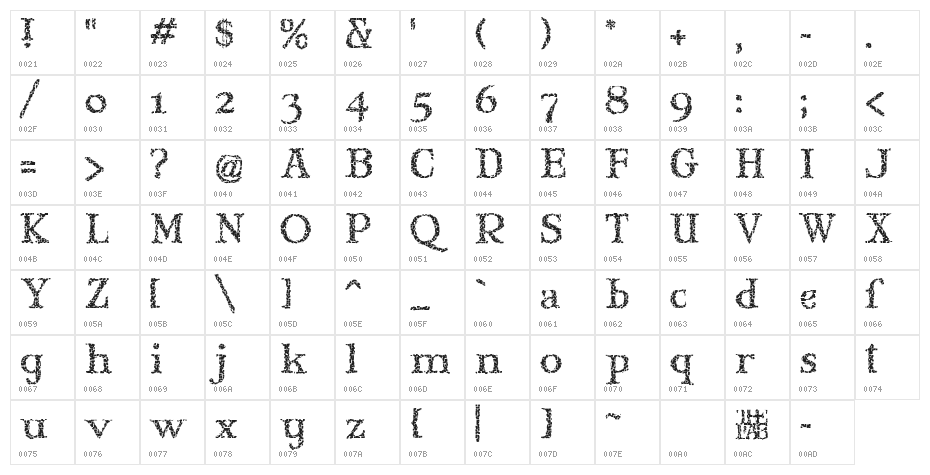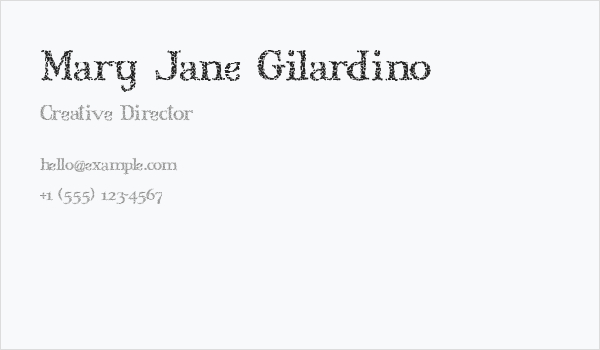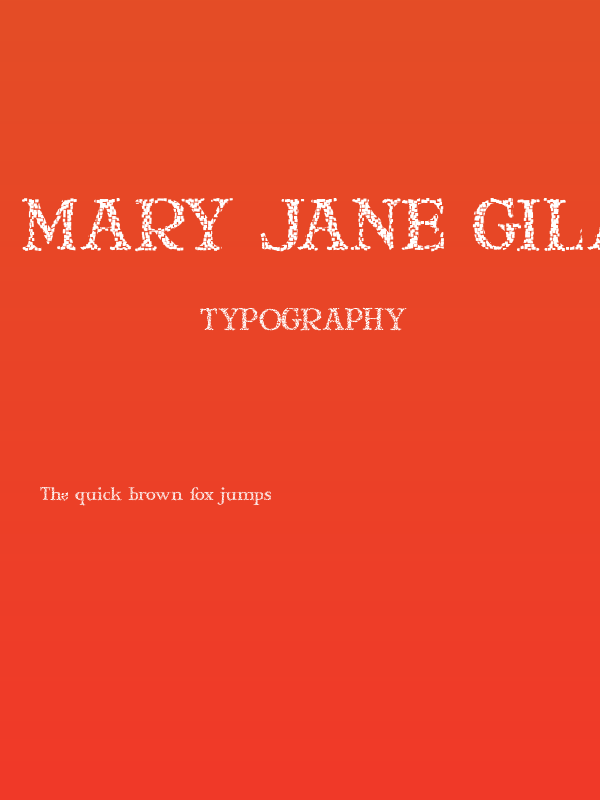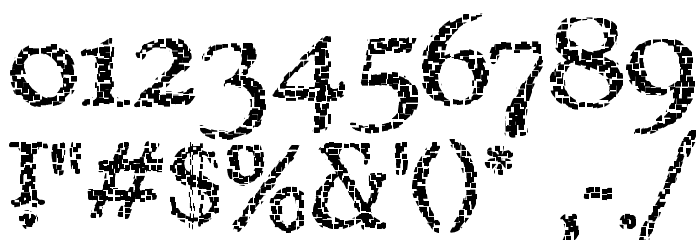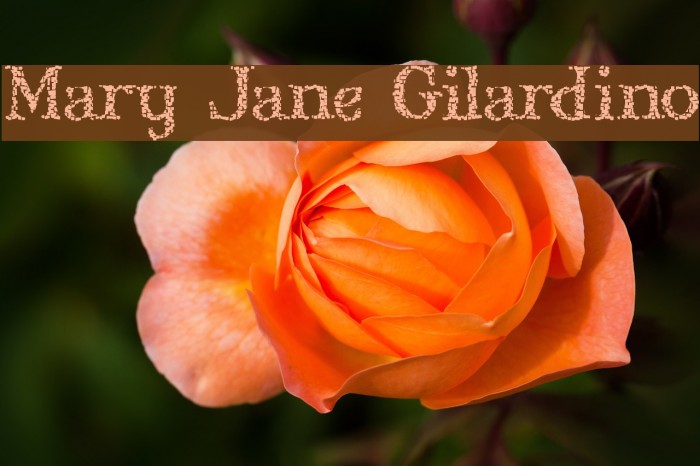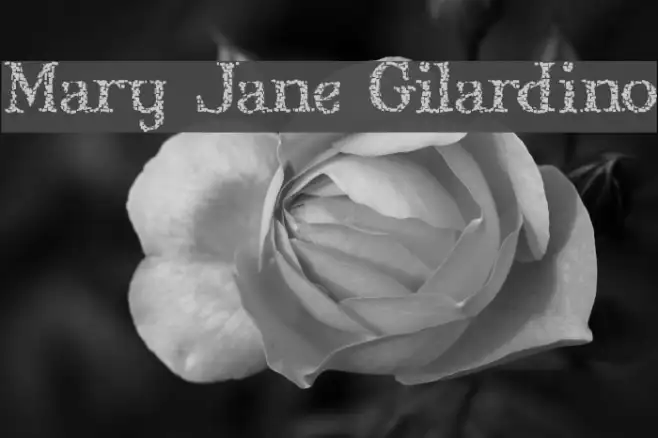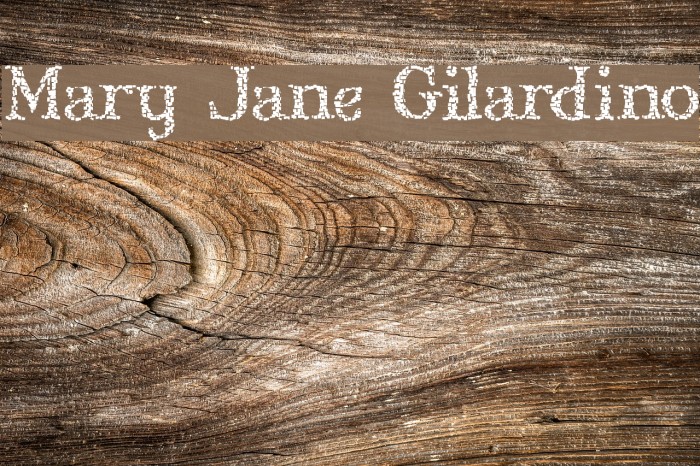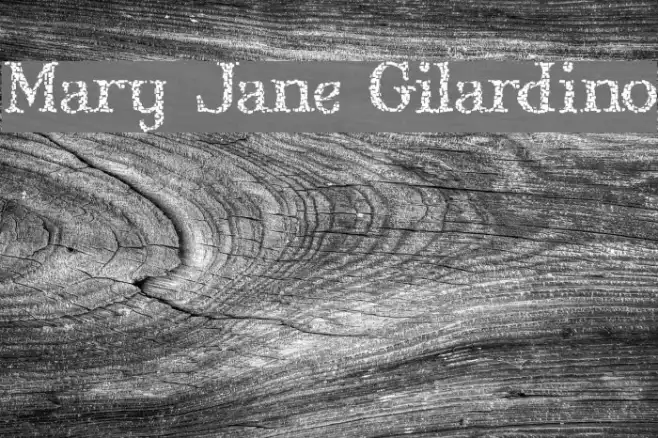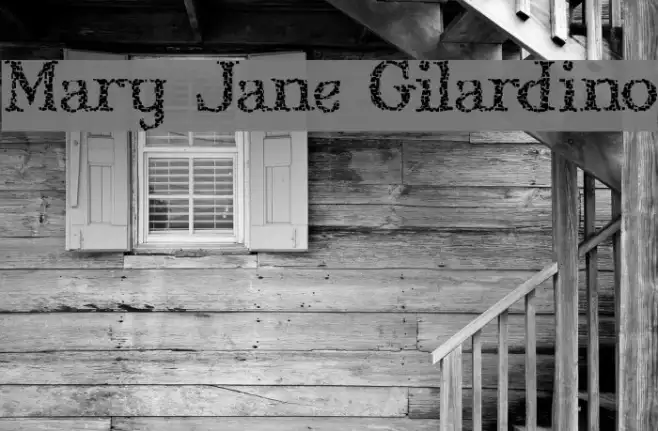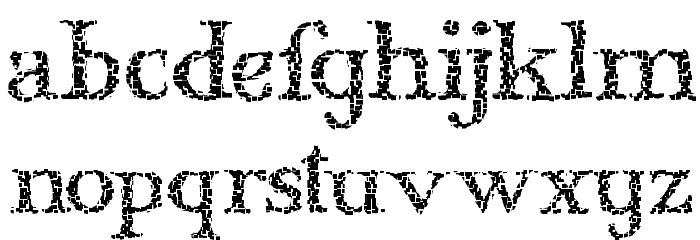
Mary Jane Gilardino Font
Mary Jane Gilardino Description
This font features a unique, textured design that gives the impression of being composed of scattered particles or dots. The characters maintain a classic serif structure, providing a sense of tradition and formality, yet the distressed, fragmented appearance adds a modern and artistic twist. The uppercase and lowercase letters are well-proportioned, with the serifs adding elegance and readability. Numerals and special characters follow the same stylistic approach, ensuring consistency across all glyphs. This font's distinctive style makes it stand out, offering a blend of classic serif elements with a contemporary, artistic flair.
| Use Case | Logos, Headlines, Artistic designs |
| Proposed Projects | Ideal for artistic projects, branding, posters, and any design requiring a unique, textured look. |